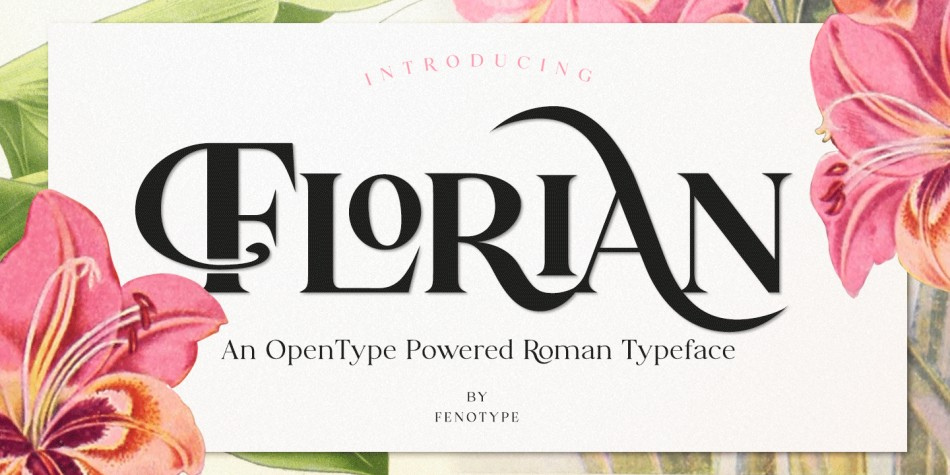
Florian Font
Florian Font is perfect for botanical branding projects, floral design businesses, garden center communications, nature-inspired product packaging, organic lifestyle marketing, greenhouse nursery signage, environmental conservation materials, and natural beauty advertising campaigns. This blooming typeface works beautifully in both digital applications and print media where natural elegance and floral sophistication are essential design elements.
What makes Florian Font so exciting is its graceful interpretation of botanical beauty through elegant letterforms that seem to grow with the same organic grace and natural refinement found in flowering gardens and pristine natural landscapes. The font features delicate characters with floral proportions, botanical curves, and natural details that evoke the peaceful serenity of blooming meadows and the timeless elegance of carefully cultivated gardens. Its organic personality and botanical heritage make it ideal for brands seeking to communicate natural beauty, environmental harmony, and the gentle power of nature while appealing to audiences who appreciate floral artistry and sustainable living.
The Florian Font family includes multiple weight variations with different blooming intensities, along with botanical alternates and floral ornamental elements. Each style maintains the typeface's elegant character while offering comprehensive character sets including natural numerals, botanical punctuation marks, and special symbols designed to enhance environmental communications and organic branding efforts across various natural contexts.
This remarkable typeface represents the perfect fusion of botanical inspiration and contemporary design functionality for environmental and lifestyle industries. Whether you're developing floral business identities, creating garden center materials, or designing natural product campaigns, Florian Font Free Download provides the botanical elegance and versatility needed to connect with nature-loving audiences. The font's floral appeal makes it particularly effective for florists, garden centers, organic brands, and businesses celebrating the beauty and importance of natural environments and sustainable living practices.
The carefully crafted botanical details and optimized natural performance in Florian Font ensure both organic authenticity and clear communication across all environmental applications. Its elegant presence makes it perfect for natural branding, botanical marketing materials, and environmental communications where its full floral character can create lasting connections with audiences who cherish the beauty of nature and the peaceful harmony of living in balance with the natural world.